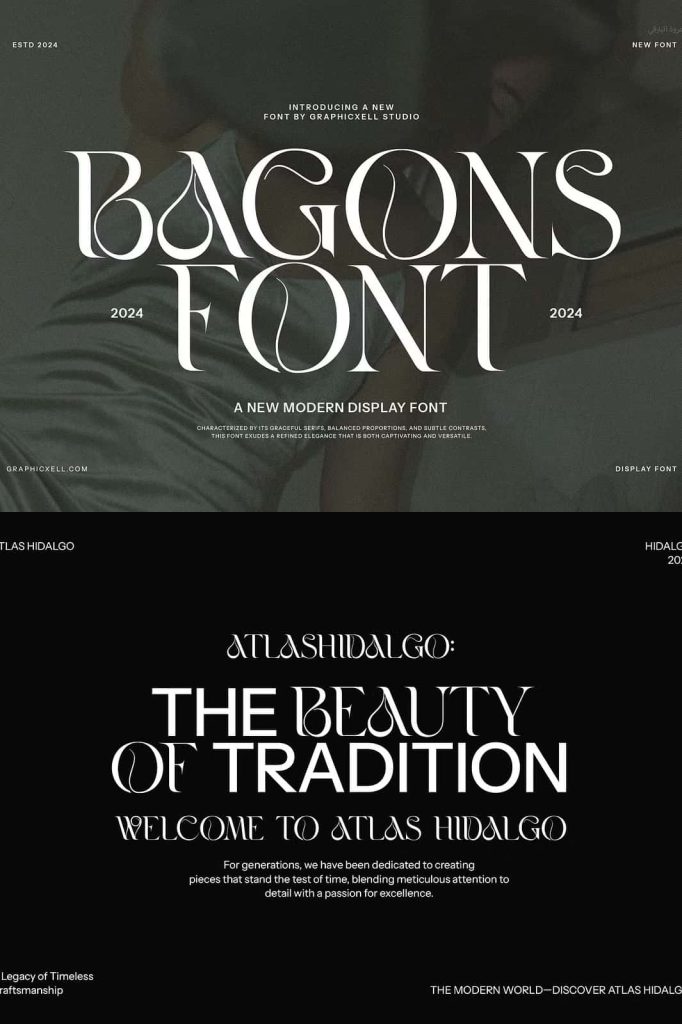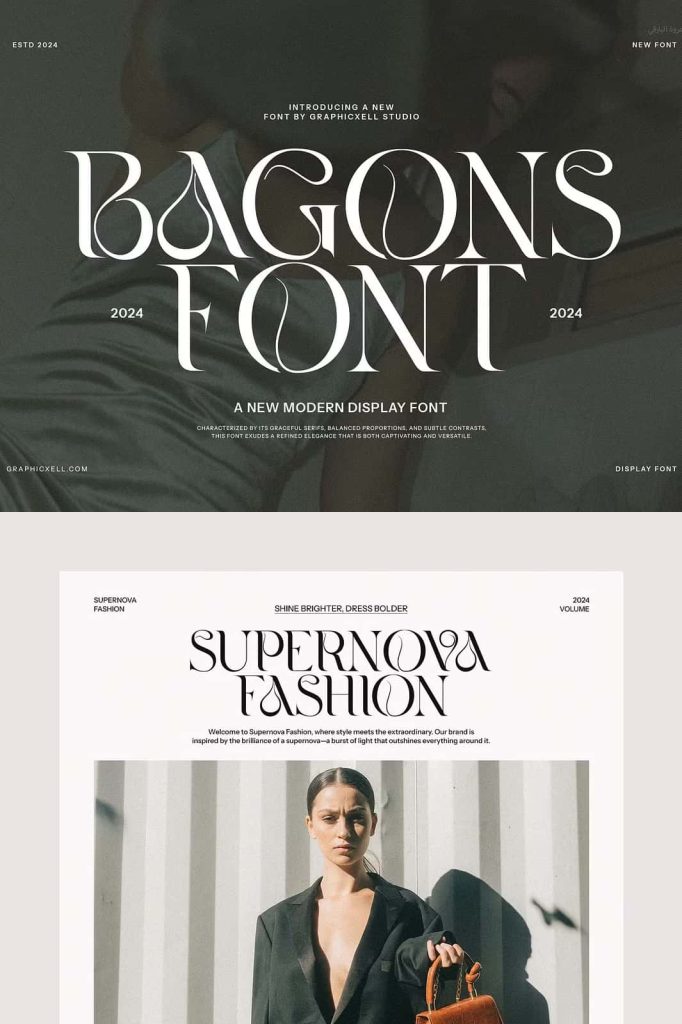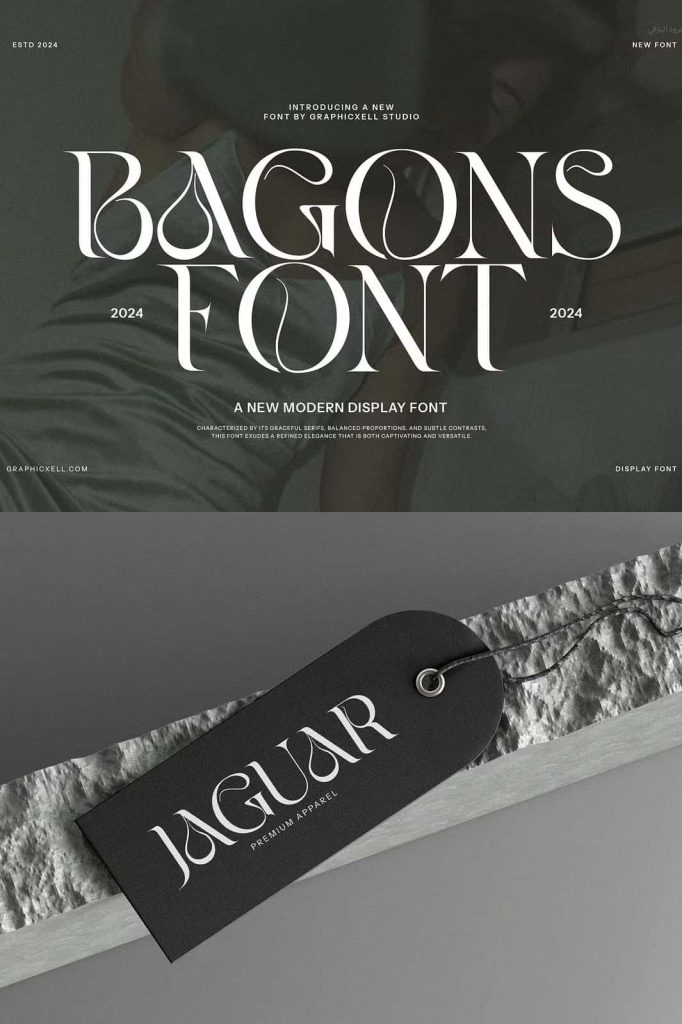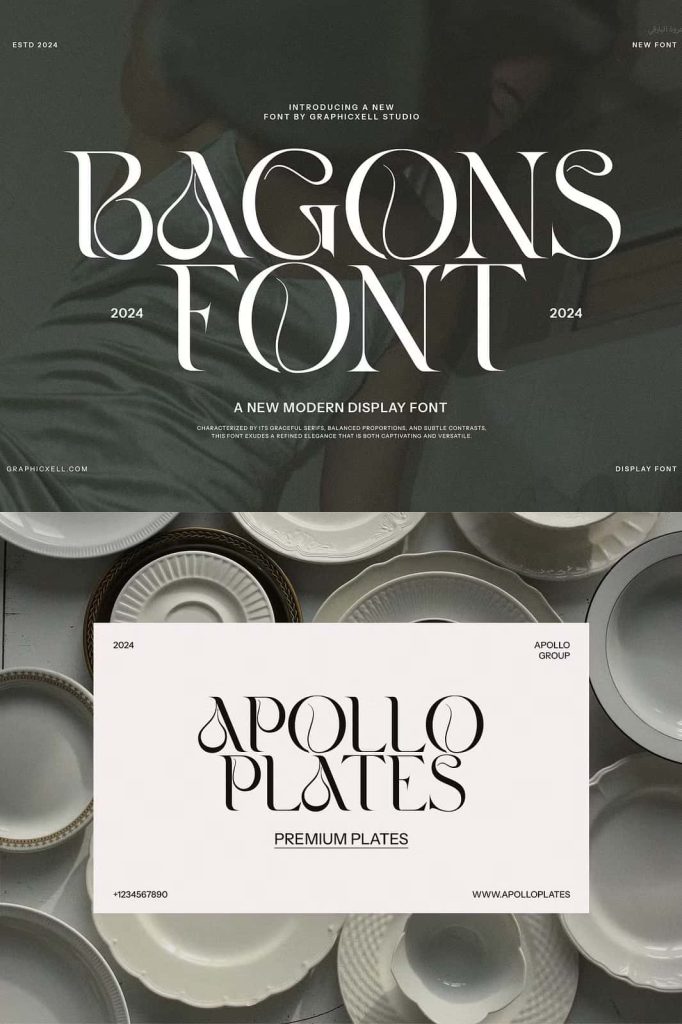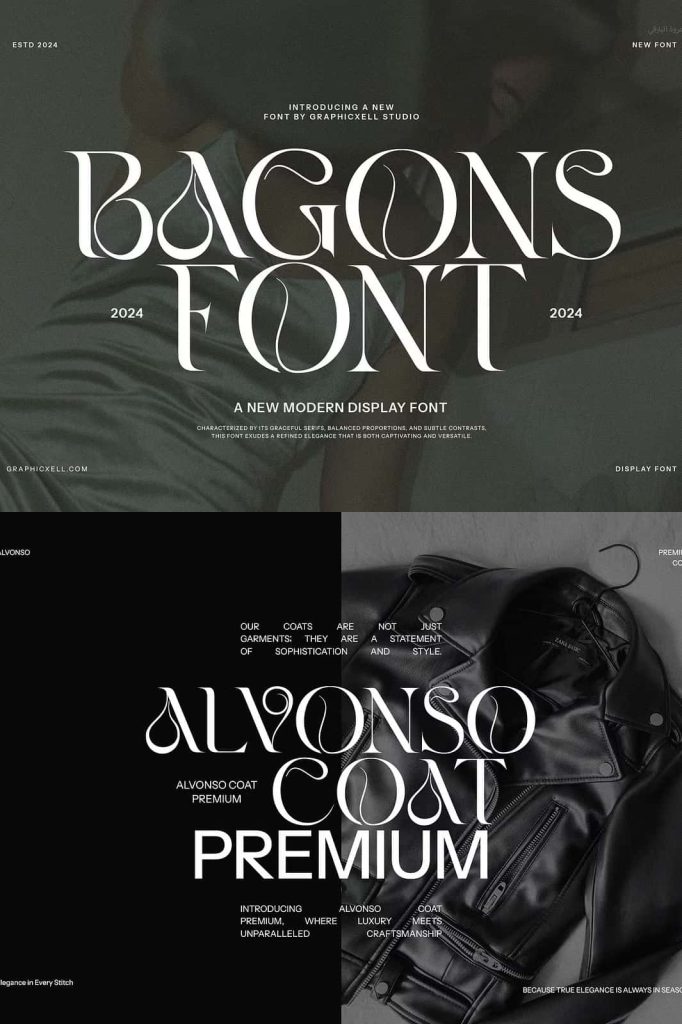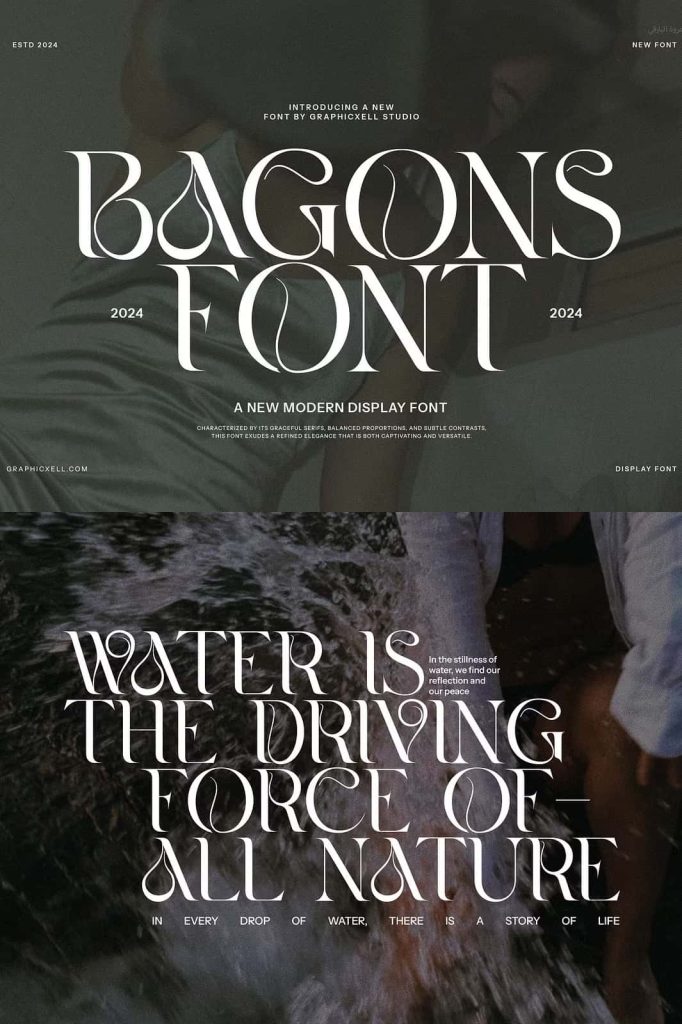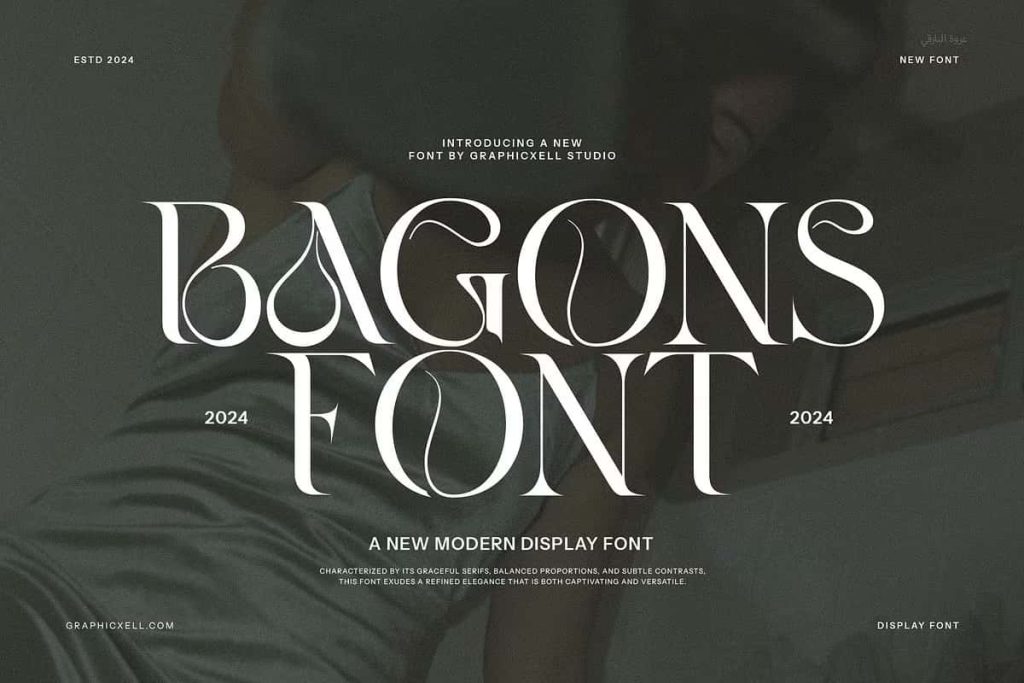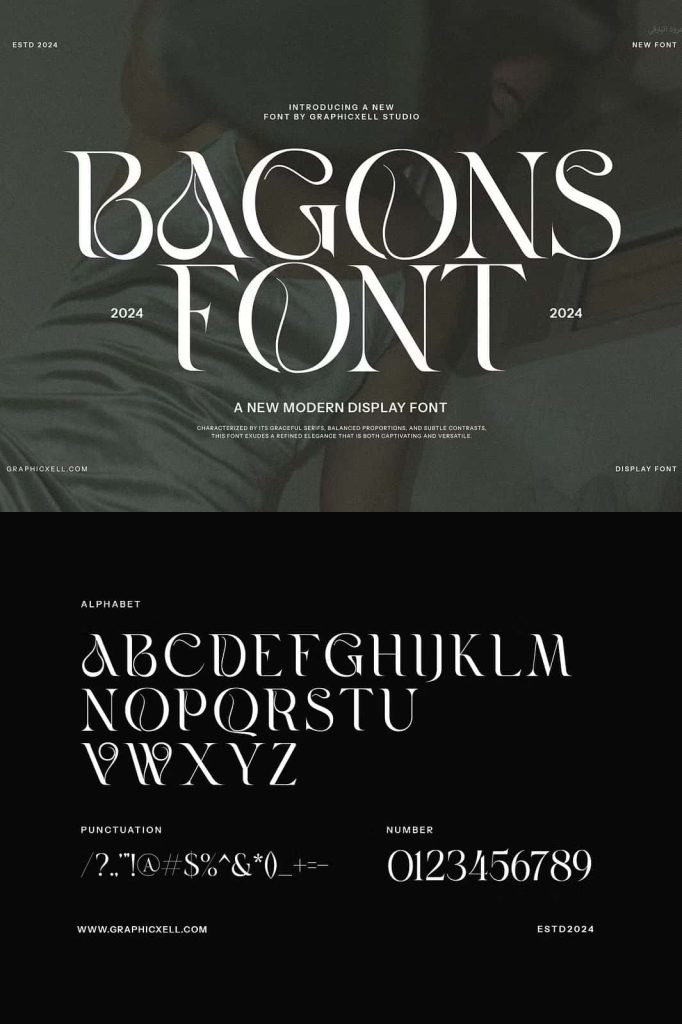
Bagons Elegant Serif is a modern serif typeface that offers a fashionable touch. It doesn’t only look sophisticated but also charming. What makes it interesting is the delicate curves, bringing an elegant style. The classy ligature also becomes one of its characteristics and appeals. With calligraphic influences, this font gives a contemporary feeling. So, it is perfect for various designs such as beauty designs, elegant crafting,